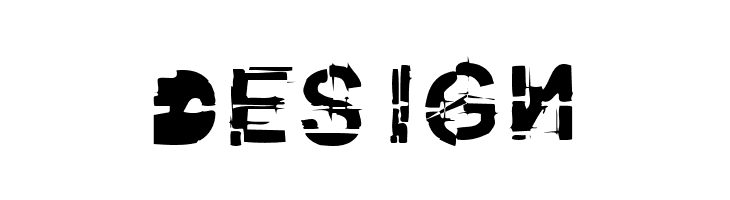
Liner SH Font
- Font: Liner SH
( Fonts by TarmSaft Font Factory - http://www.aska.nu/tarmsaft/ )
A bold, Gothic-inspired font with a modern yet classic appeal.